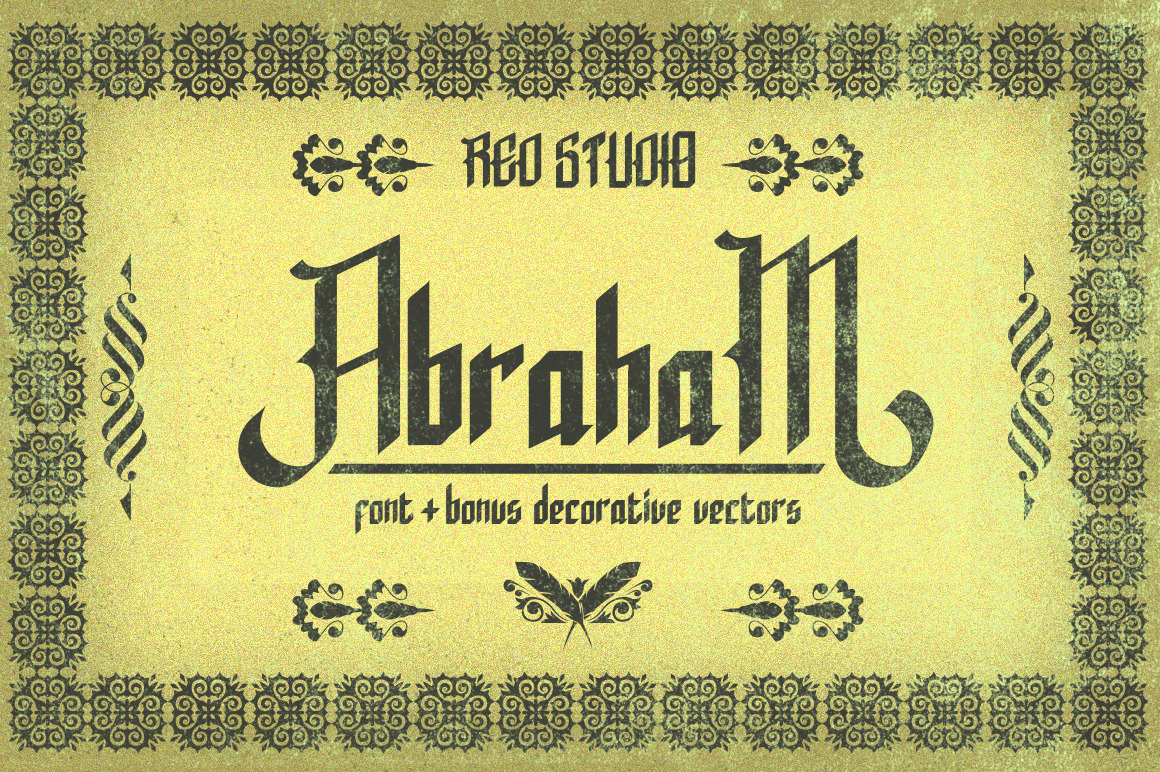
Abraham is a gothic font, Inspired by the European Handwriting. You can use Abraham Font in any setting; name on certificate, vintage poster, film title, typography job, etc. Bonus :
- Decorative Vector Pack
- Some Alternates